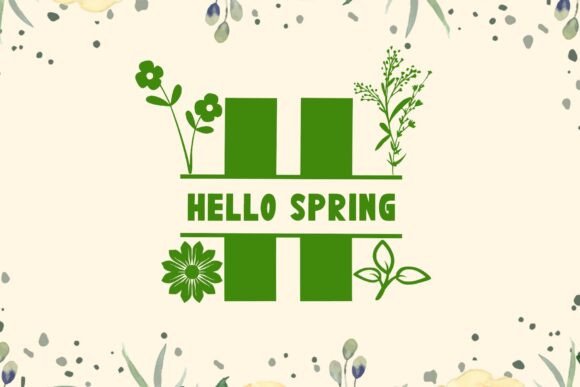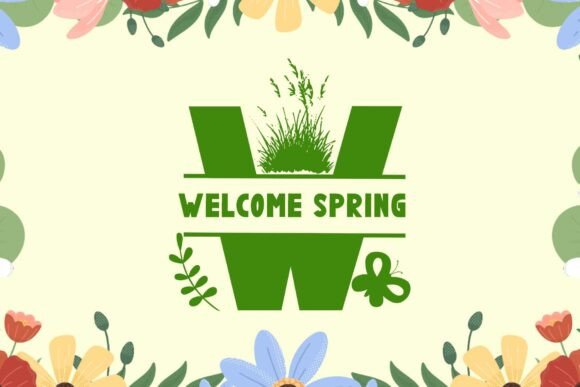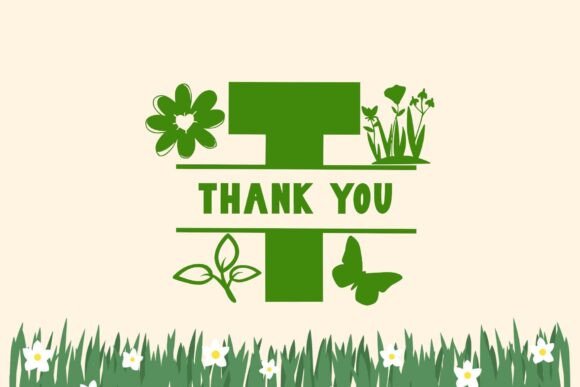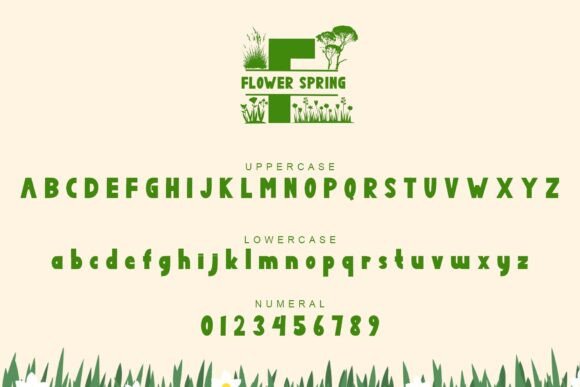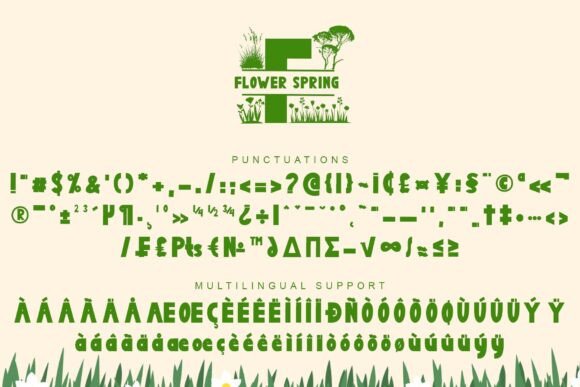
The Sweetest Font for Spring: A Deep Dive into Flower Spring Monogram Font
Here’s what makes Flower Spring Monogram Font a standout:
- ✨ Unique and cute monogram design, perfect for spring and summer projects
- ✅ Includes uppercase, lowercase, numerals, punctuations, and multilingual support
- 💖 Great for display, cartoon, sticker, Easter, print, branding, and logo designs
- 🌈 Beautifully crafted to evoke a sense of freshness and playfulness
As with any font, there are a few minor quirks to be aware of:
- 🤔 Some users might find the font a bit limited for body text, but it’s primarily designed for display purposes
- ⚠️ As with many monogram fonts, it might not be the best choice for very small font sizes
One of the best things about Flower Spring Monogram Font is its support for OpenType features and glyphs. These allow you to:
- Access alternative characters and ligatures
- Create beautiful, intricate designs with ease
- Customize your text to fit your brand’s personality
The Designer Inspiration Behind Flower Spring Monogram Font
| Font Name | Flower Spring Monogram Font |
| Author | yogaletter6 |
| Q: Is Flower Spring Monogram Font suitable for body text? | A: While it’s primarily designed for display purposes, it can be used for short paragraphs or captions. However, for longer texts, a more traditional font might be more readable. |
| Q: Does Flower Spring Monogram Font support non-English characters? | A: Yes, it includes multilingual support, making it versatile for designs targeting various languages. |